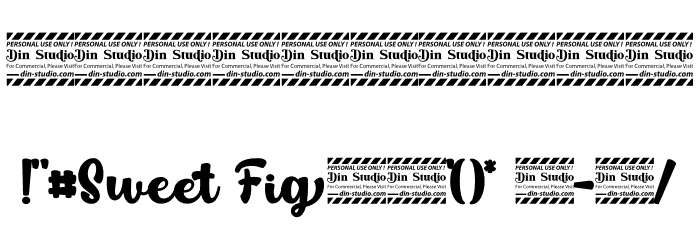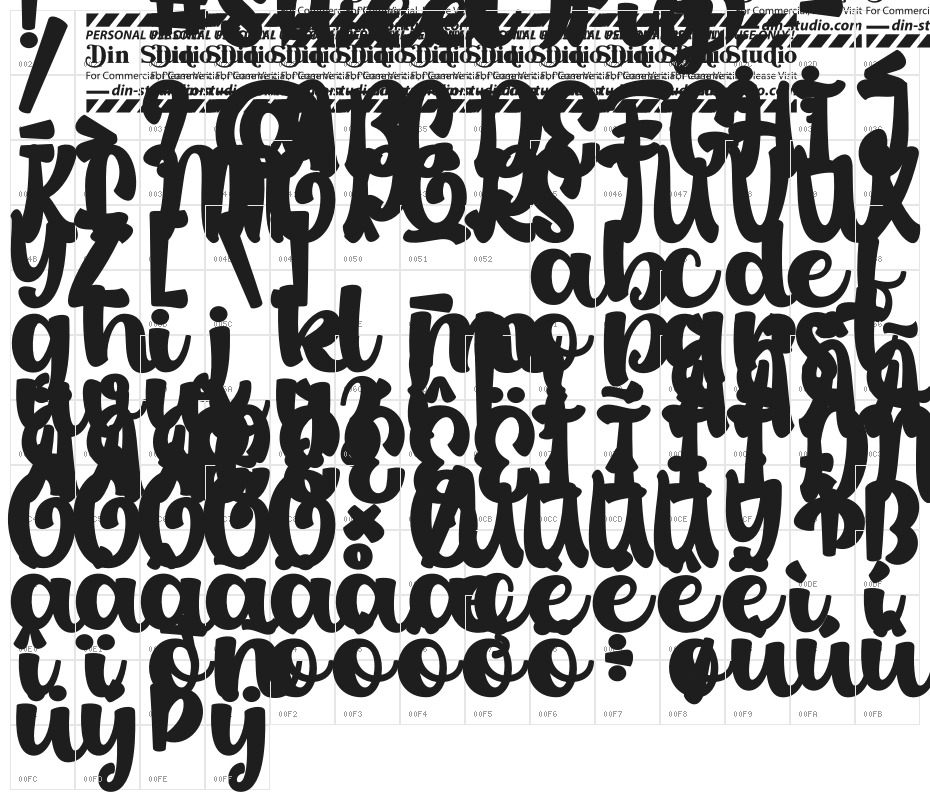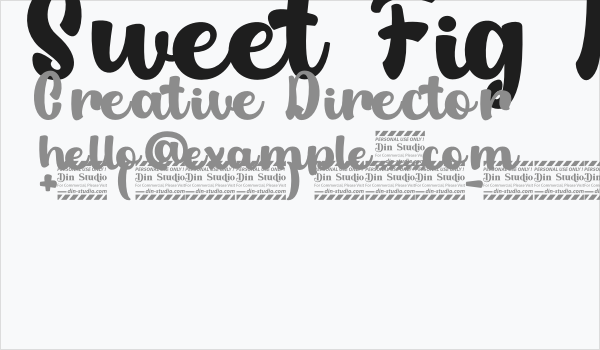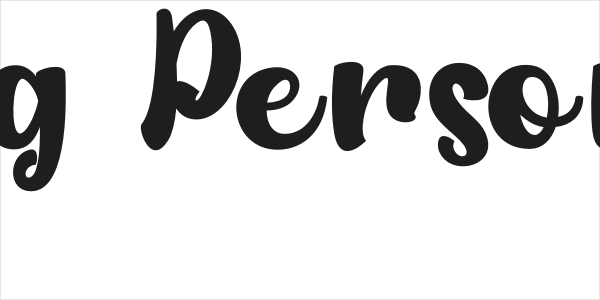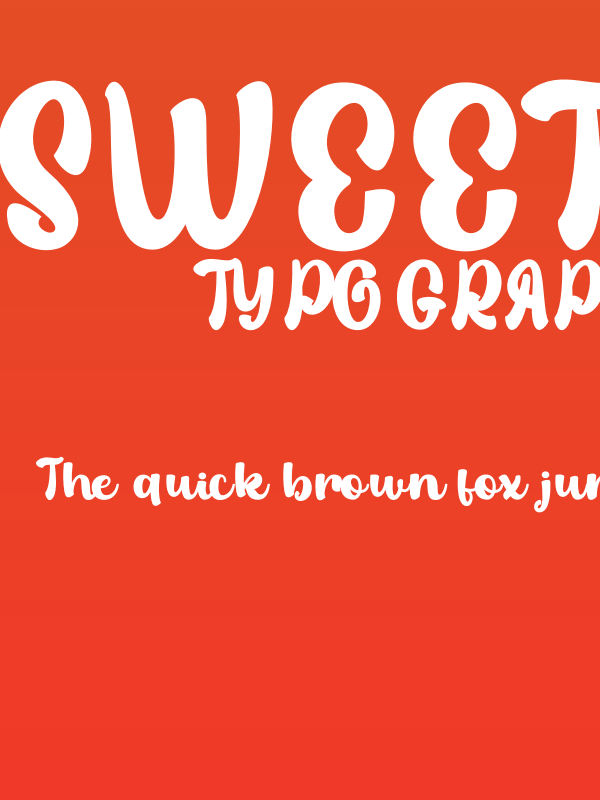
Sweet Fig Personal Use Font
Sweet Fig Personal Use Description
This font features a bold and playful script style with a modern twist. The characters are rounded and have a smooth flow, giving it a friendly and approachable appearance. The uppercase letters are slightly more structured, while the lowercase letters exhibit a more casual and handwritten feel. The font maintains consistent thickness throughout, providing a uniform look. The special characters are designed to match the playful nature of the alphabet, making it suitable for creative and informal projects.